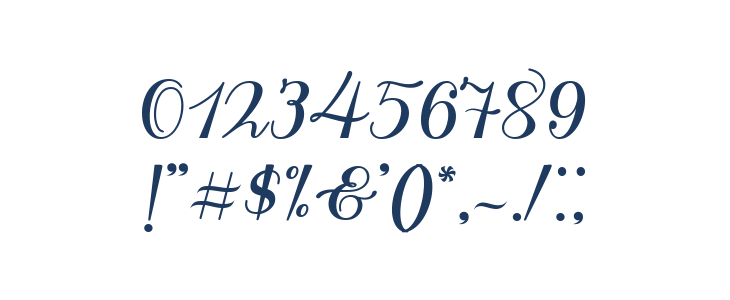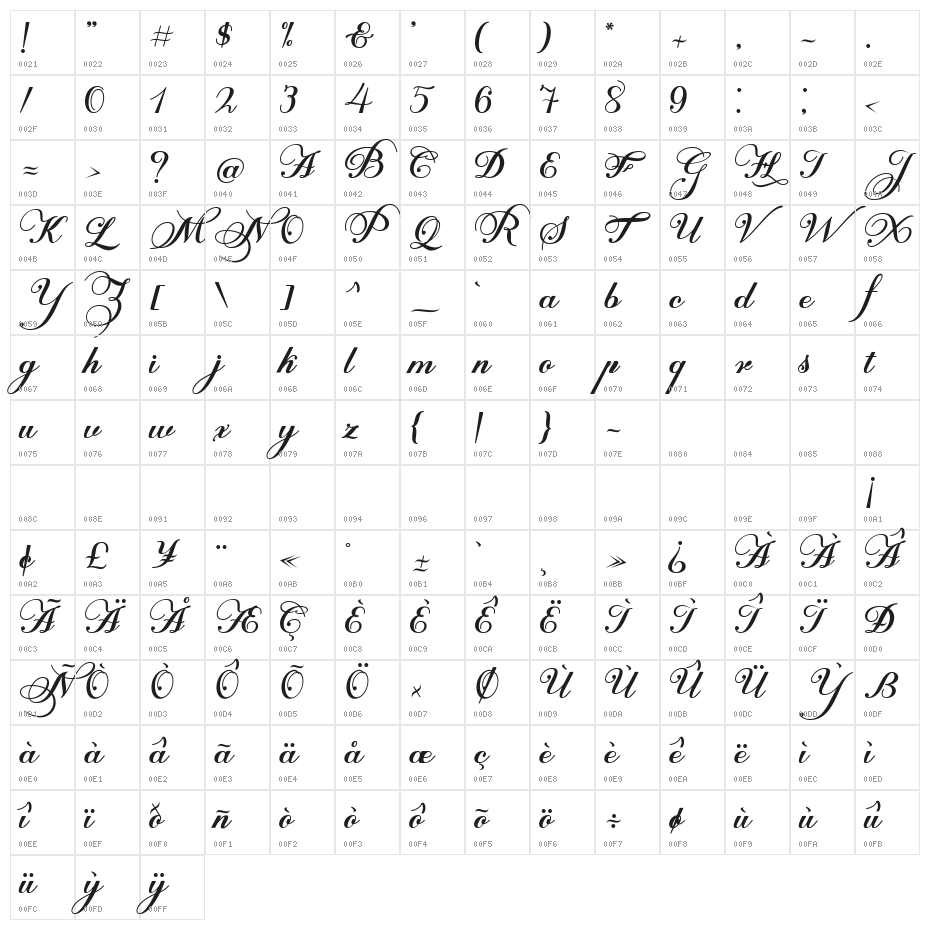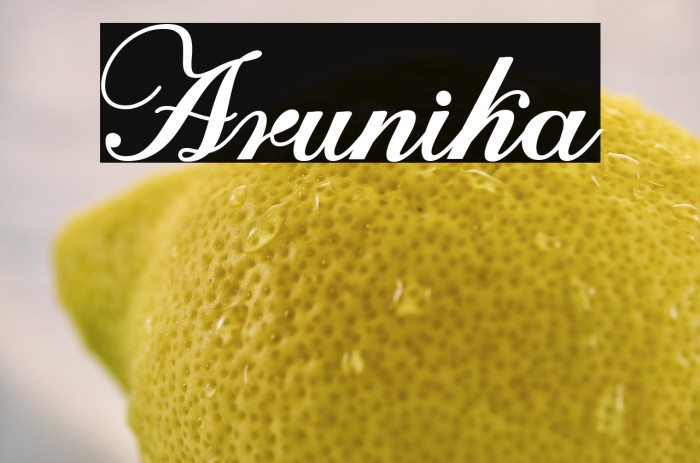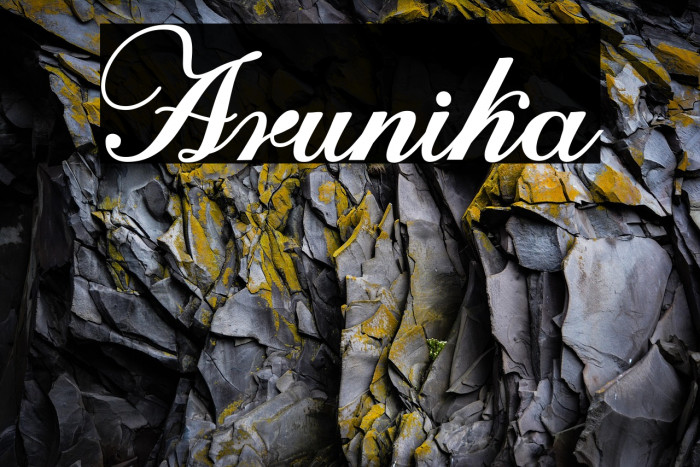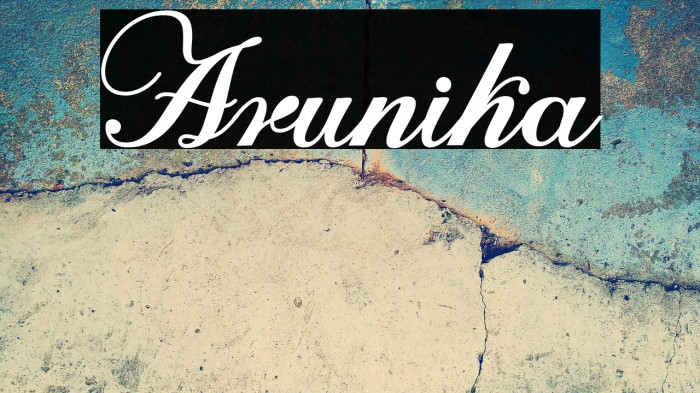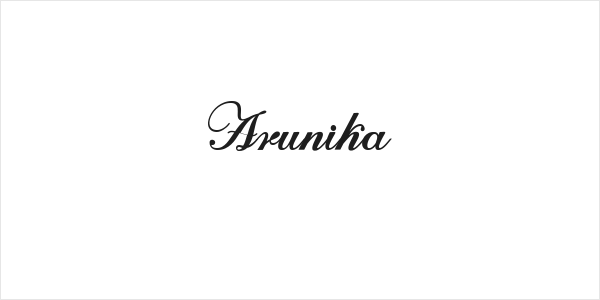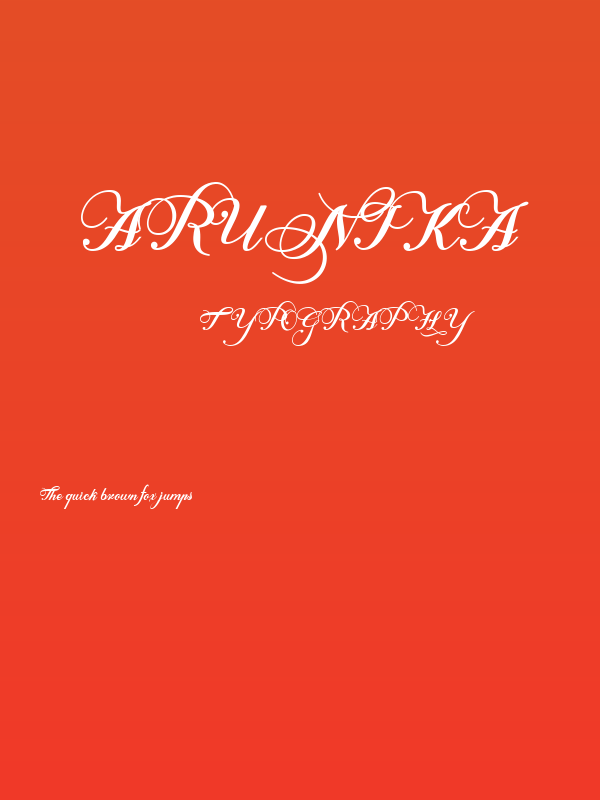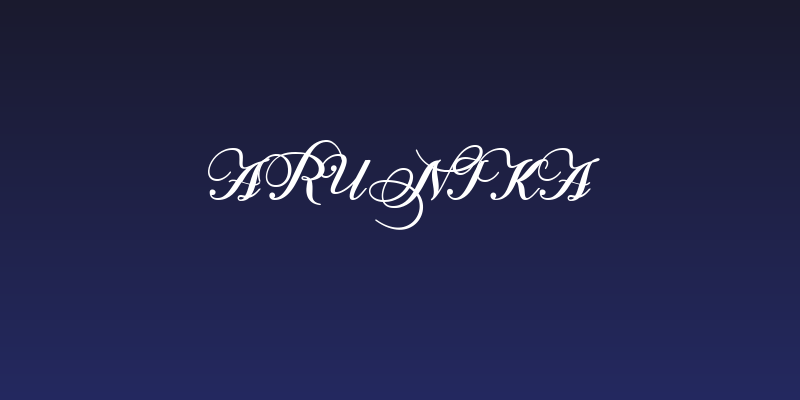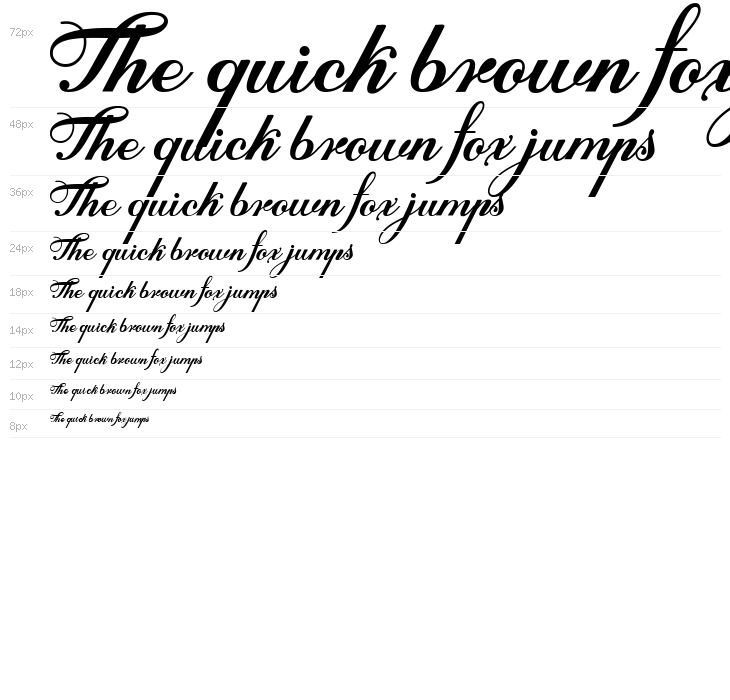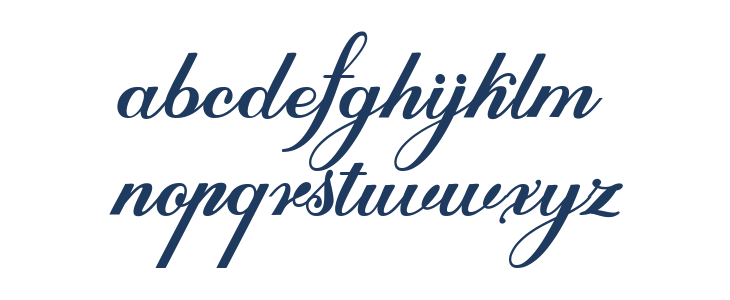
Arunika Font
Arunika Description
This elegant script font features a sophisticated and flowing design, characterized by its intricate loops and flourishes. The uppercase letters are particularly ornate, with sweeping curves that give a sense of movement and grace. The lowercase letters maintain a consistent style, offering a harmonious blend of readability and decorative flair. The numerals and special characters are crafted with the same attention to detail, ensuring a cohesive look across all elements. This font is ideal for projects that require a touch of elegance and sophistication, such as wedding invitations, formal event programs, or luxury branding.
| Use Case | Headlines, Invitations, Branding |
| Proposed Projects | Ideal for wedding invitations, formal event programs, luxury branding, and elegant stationery. |